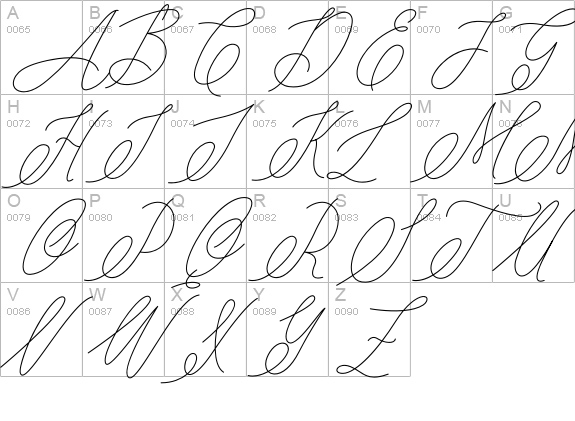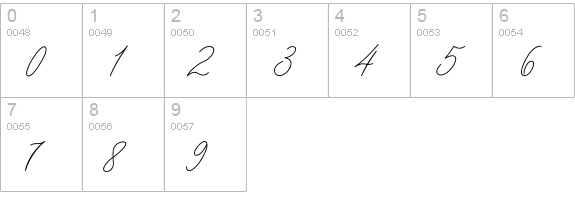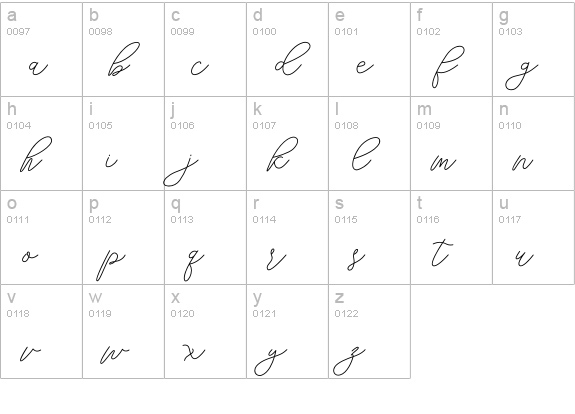
Monday Line Font Details
Monday Line is a free for personal use font in the Script > Calligraphy category, designed by Fana Studio. It has been downloaded 816 times and is available for Windows, Mac and Linux.
Monday Line font is a sleek and modern typeface that exudes elegance and sophistication. With its clean lines and minimalist design, this font is perfect for a wide range of projects, from branding and advertising to editorial and web design.